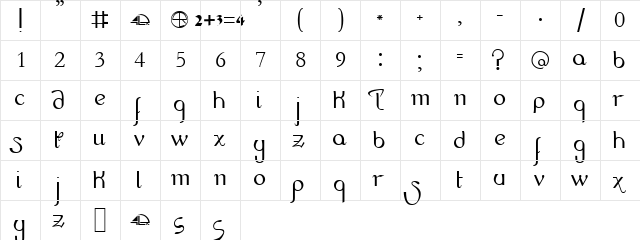
HandScript LCase 4LR Normal
HandScript LCase 4LR flows with the natural rhythm of handwritten lettering, making it ideal for designs that call for warmth and personal expression.
Font Pairing: Combine HandScript LCase 4LR with a simple geometric sans for maximum contrast — the tension between flowing curves and clean structure is a classic typographic pairing.
Pro Tip: Pair HandScript LCase 4LR with a clean sans-serif for supporting text. The contrast between fluid script and geometric structure creates an elegant typographic hierarchy.